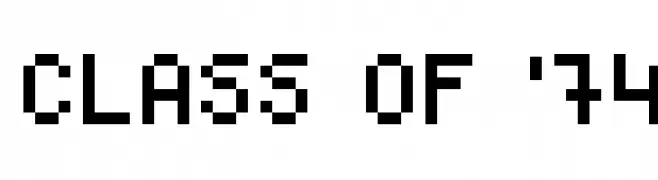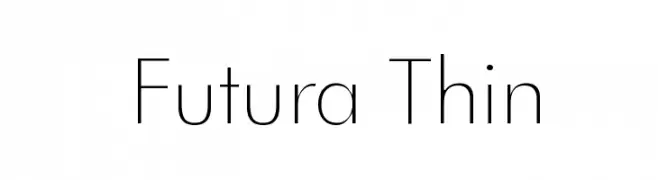
A sleek, thin, and italicized font with a modern and elegant style.
A bold, distressed font with a grunge, textured appearance.
A bold, geometric font with a strong, industrial style.
A bold, hand-drawn font with a rugged and organic appearance.
A playful, handwritten-style font with a whimsical and casual feel.
A bold, geometric font with a digital, blocky style.
A decorative font with ornate curls and spikes, perfect for dramatic designs.
A bold, geometric font with a modern, digital aesthetic and rounded edges.
A bold, geometric font with a modern, digital aesthetic and rounded corners.
A bold, italicized font with a futuristic, digital aesthetic.
A bold, playful handwritten font with smooth, rounded edges.
A bold, italic, comic-inspired font with a playful and energetic style.
A playful, handwritten font with smooth, rounded edges and a casual flow.
A playful, italicized handwritten font with smooth, rounded strokes.
A playful, handwritten font with smooth, rounded edges and a casual, friendly appearance.
A playful, handwritten font with smooth curves and a light italic style.
A bold, decorative font with intricate curves and playful serifs.
A bold, pixelated font with a retro digital aesthetic.
A bold, geometric font with thick strokes and a modern, impactful design.
A bold, italic font with a dynamic and modern style.
A modern, ultra-thin font with elongated, narrow characters.
An artistic, handwritten-style font with flowing, interconnected strokes.
Tall, narrow handwritten font with a whimsical style.
A bold, brushstroke font with sharp, dynamic edges.
An ornate and decorative font with intricate blackletter-inspired designs.
An ornate, Gothic-inspired decorative font with intricate floral designs.
A bold, playful font with thick, rounded strokes and a modern style.
A bold, geometric font with a modern and dynamic style.
A dynamic and fluid handwritten script with elegant, flowing strokes.
A semi-serif font combining classic elegance with modern style.